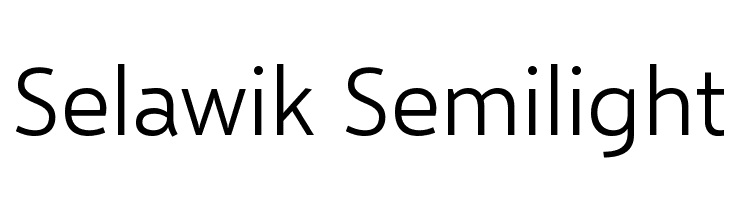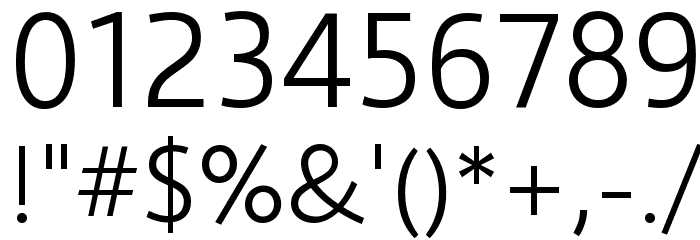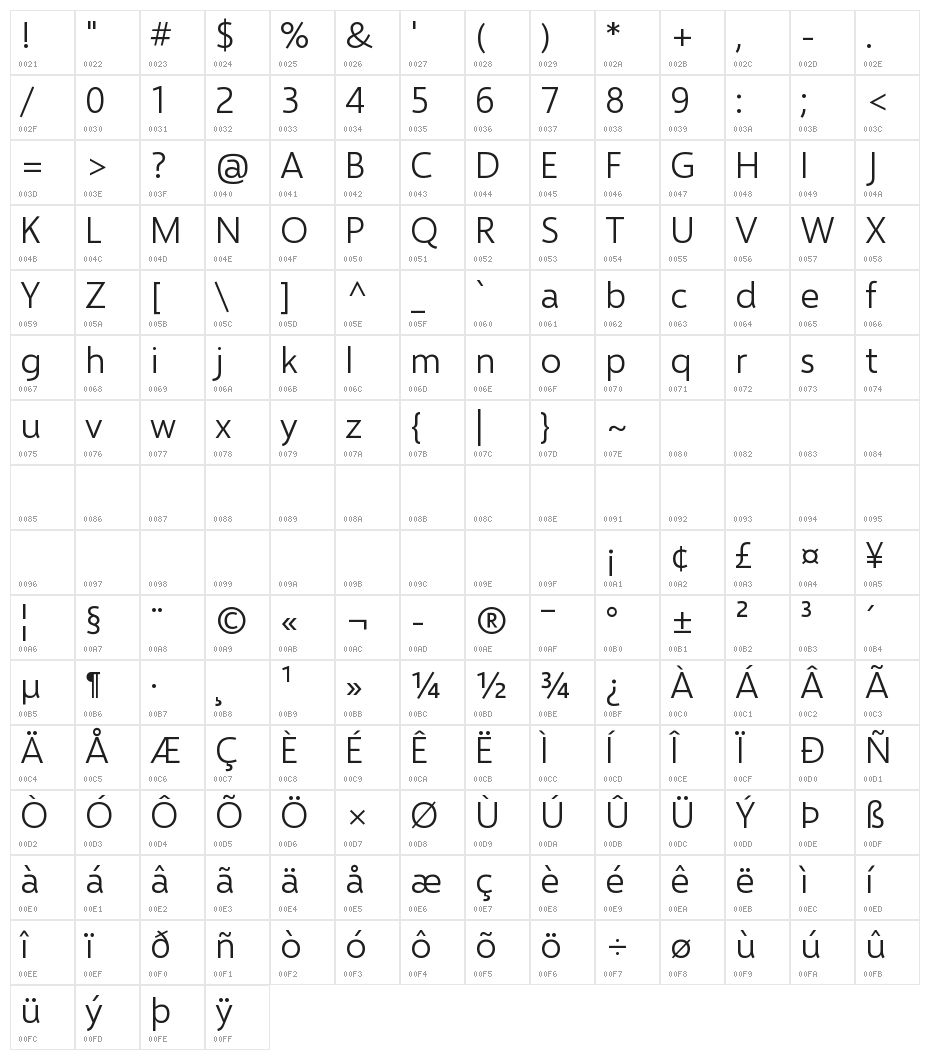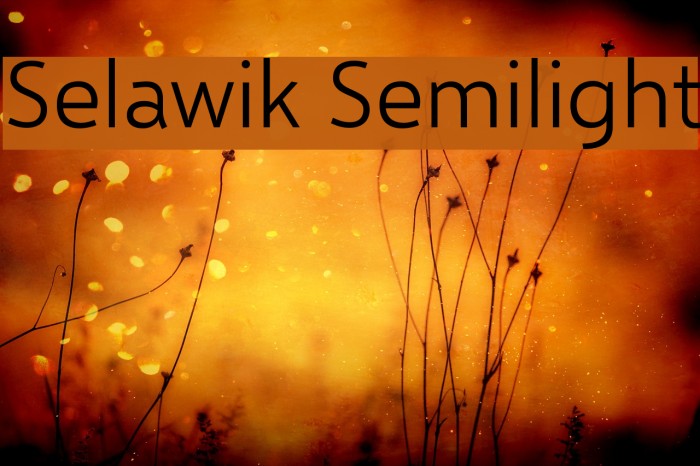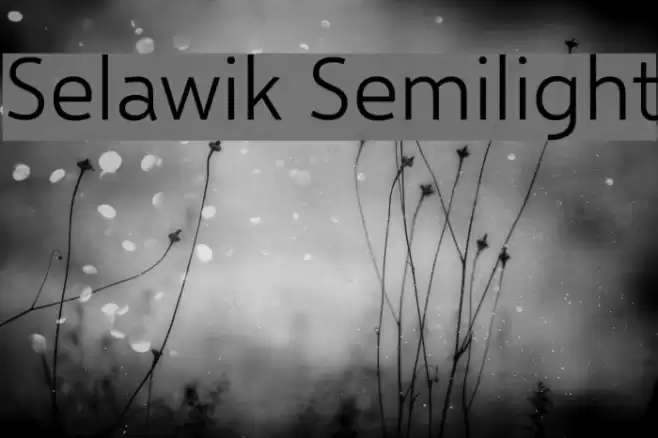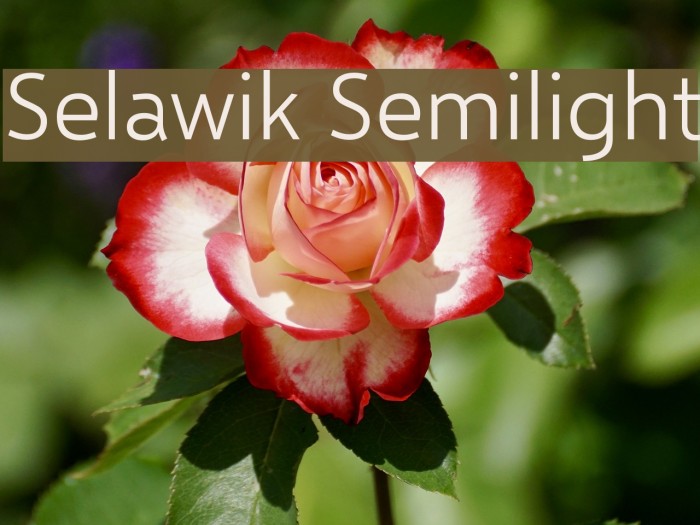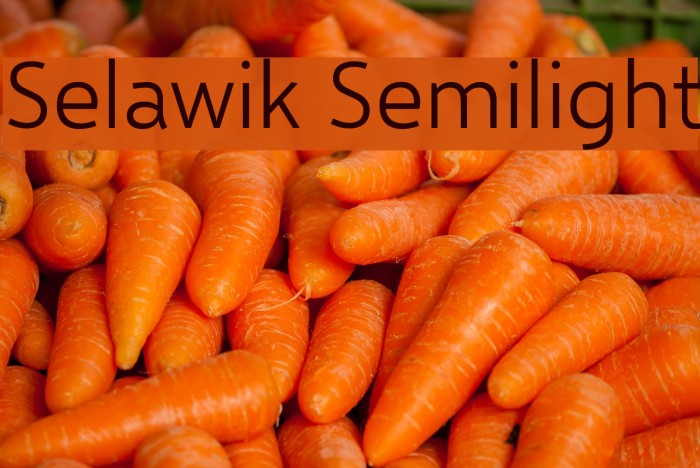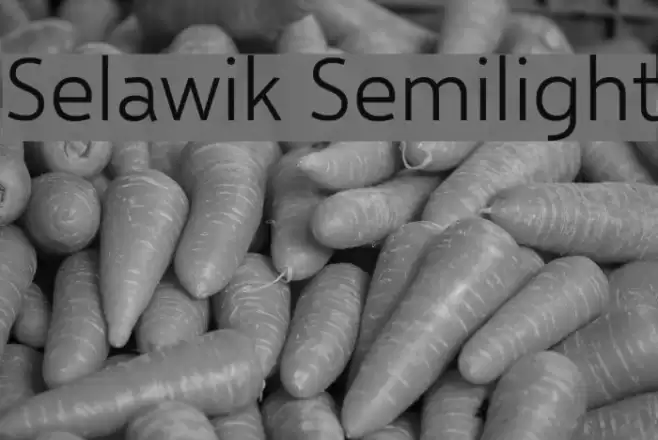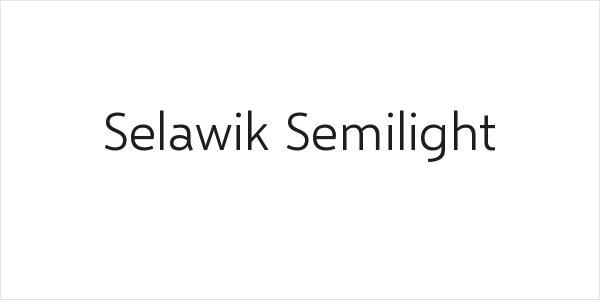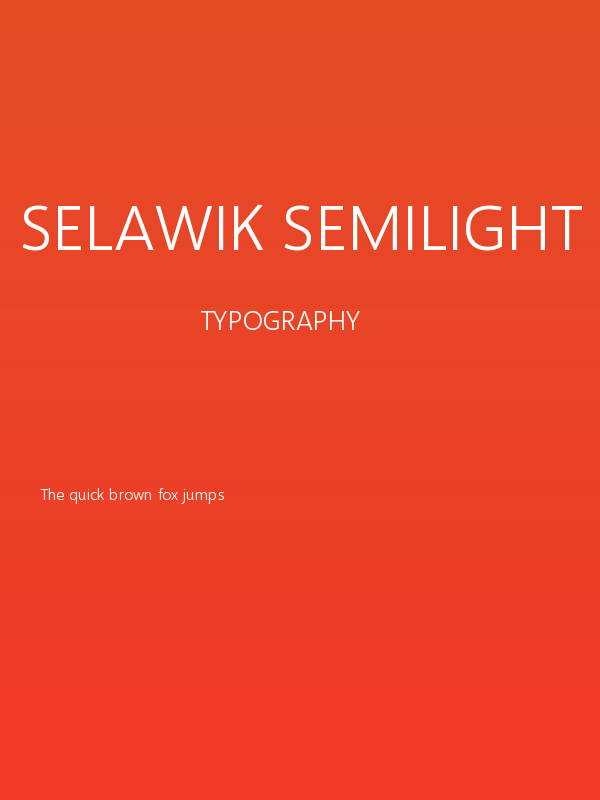
Selawik Semilight Font
Selawik Semilight Description
This font features a clean and modern sans-serif design, characterized by its simplicity and readability. The letterforms are well-balanced with a uniform stroke width, giving it a sleek and contemporary appearance. The uppercase and lowercase letters are designed with a consistent height and width, ensuring a harmonious look across all characters. The numerals are clear and distinct, making them easily legible. Special characters are included, maintaining the font's overall aesthetic. The font's minimalistic style makes it versatile for various design applications.